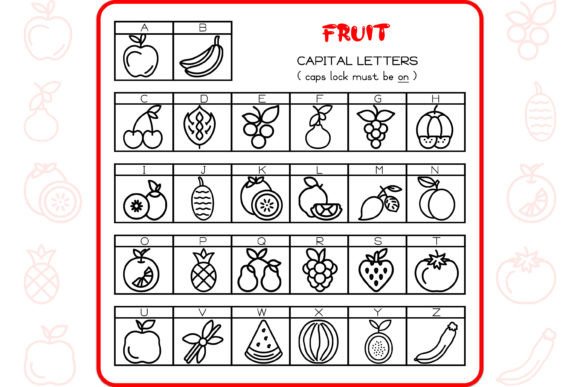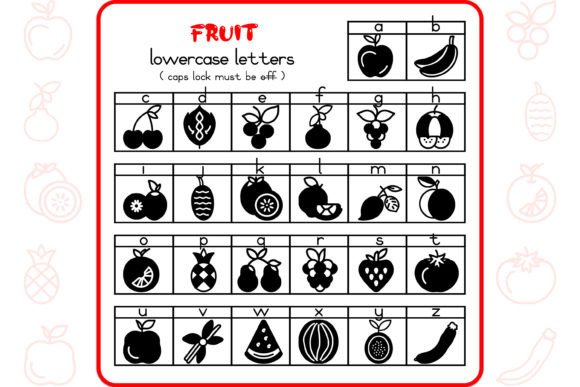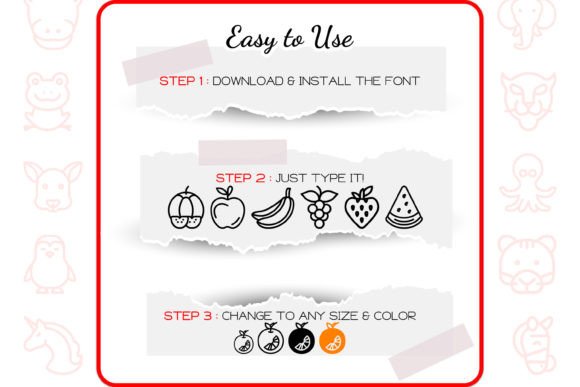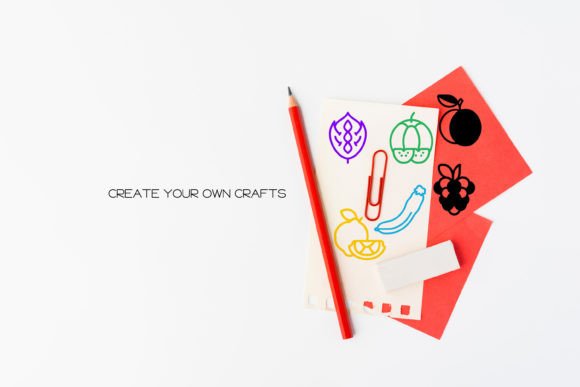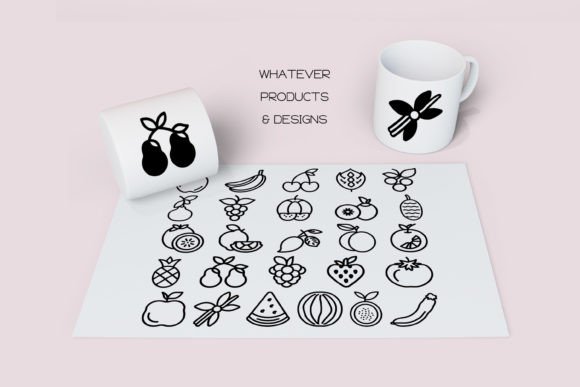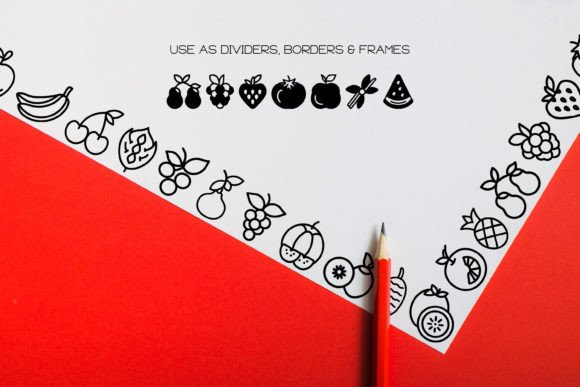
Fruit Alphabet Font: A Deliciously Creative Way to Add Flair to Your Designs
Are you a designer or crafter looking for a unique and playful way to add some personality to your projects? Look no further than the Fruit Alphabet Font! This adorable dingbat font features 52 fruit icons, each representing a letter of the alphabet from A to Z. With two styles to choose from – Outline and Filled-Outline – you’ll have endless possibilities for creative expression.
What is a Dingbat Font?
For those who may be unfamiliar, a dingbat font is a type of font that features symbols or icons instead of traditional letters. These fonts can add a fun and whimsical touch to any design project, and are often used in crafts, scrapbooking, and graphic design. The Fruit Alphabet Font takes this concept to the next level with its colorful and recognizable fruit icons.
Features of the Fruit Alphabet Font
- 52 unique fruit icons: Each letter of the alphabet from A to Z is represented by a corresponding fruit icon, making it easy to create fun and cohesive designs.
- 2 styles to choose from: The font comes in two styles – Outline and Filled-Outline – allowing you to mix and match to create visually interesting designs.
- Easily customizable: The font is compatible with most design software, making it easy to resize, color, and manipulate to fit your needs.
Uses for the Fruit Alphabet Font
The possibilities are endless when it comes to using the Fruit Alphabet Font in your designs. Here are a few ideas to get you started:
- Crafting and scrapbooking: Add a playful touch to your journal pages, cards, and other paper crafts with this fun font.
- Graphic design: Use the font to create eye-catching logos, social media graphics, and other visual elements for your business or personal brand.
- Educational materials: Create engaging and interactive learning materials for kids, such as alphabet charts and activity sheets.
- Wedding and party decor: Use the font to create custom wedding favors, invitations, and other party decorations.
Why Choose the Fruit Alphabet Font?
With so many fonts available, why choose the Fruit Alphabet Font? Here are a few reasons:
- Unique and recognizable: The fruit icons are sure to grab attention and add a touch of personality to your designs.
- Versatile: The font can be used in a wide range of design projects, from crafts to graphic design.
Tips for Using the Fruit Alphabet Font
Here are a few tips for getting the most out of the Fruit Alphabet Font:
- Experiment with different colors and textures: Don’t be afraid to try out different colors and textures to add depth and interest to your designs.
- Mix and match with other fonts: Combine the Fruit Alphabet Font with other fonts to create visually interesting and dynamic designs.
- Use it to tell a story: Use the font to create a narrative or convey a message in your designs.